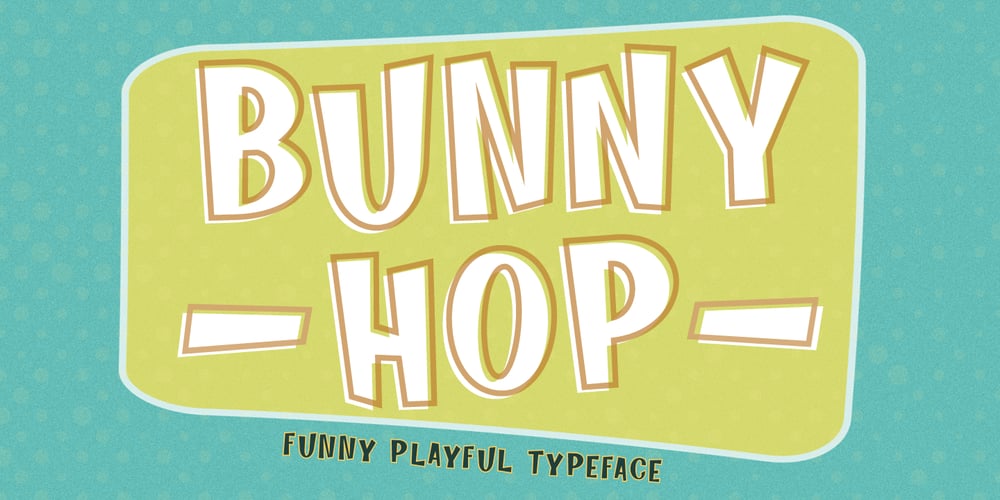
Bunny Hop Font Family was designed by Pavel Larin and published by Larin Type Co. Bunny Hop contains 2 styles and family package options. Bunny Hop – funny playful bold typeface. Will not leave you indifferent, thanks to its brave forms. It is great for creating your project, it can be used to create beautiful inscriptions on t-shirts, children’s books, branding, book covers, stationery, marketing, color, toy branding, a blog, magazines and much more.